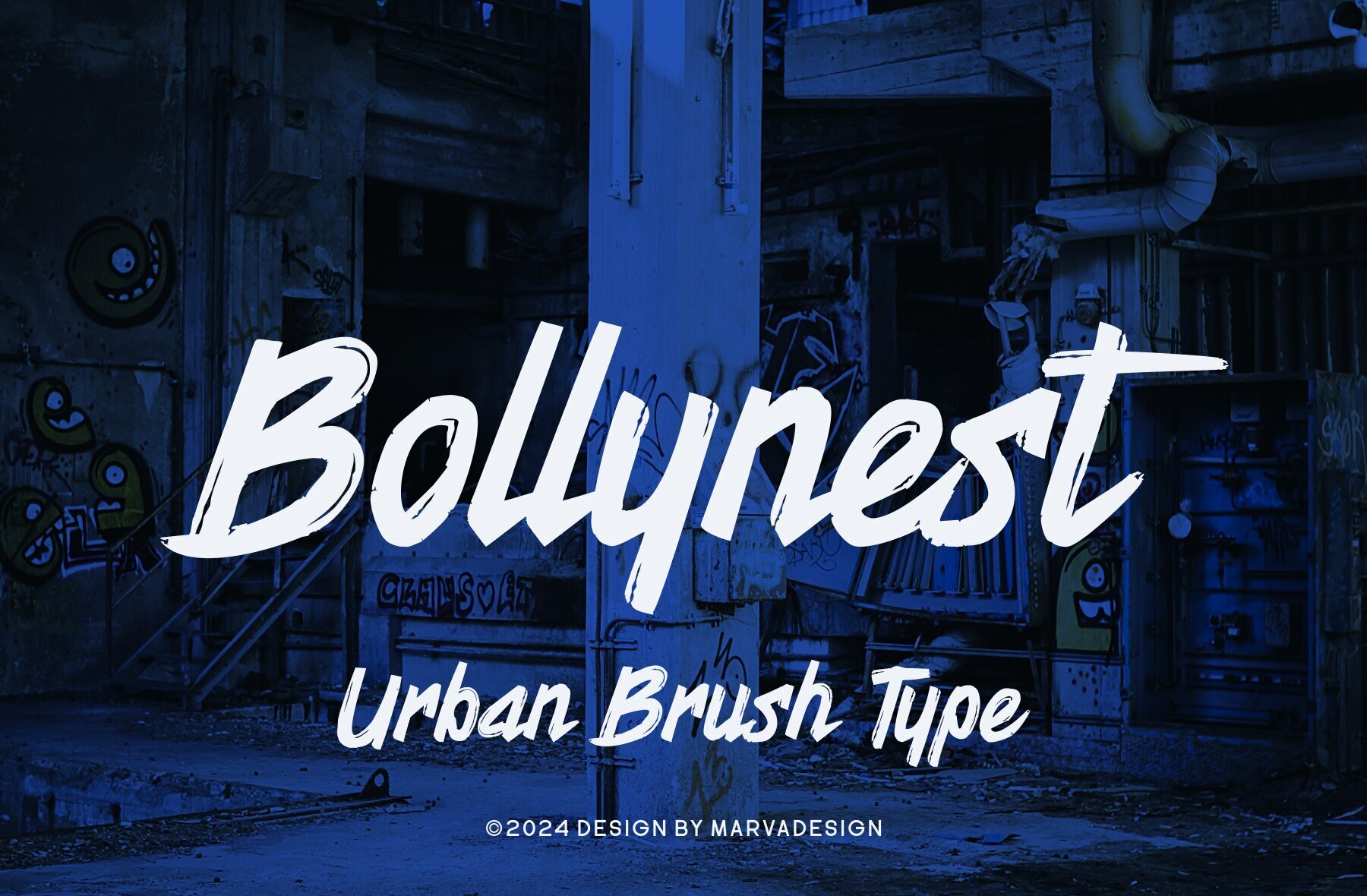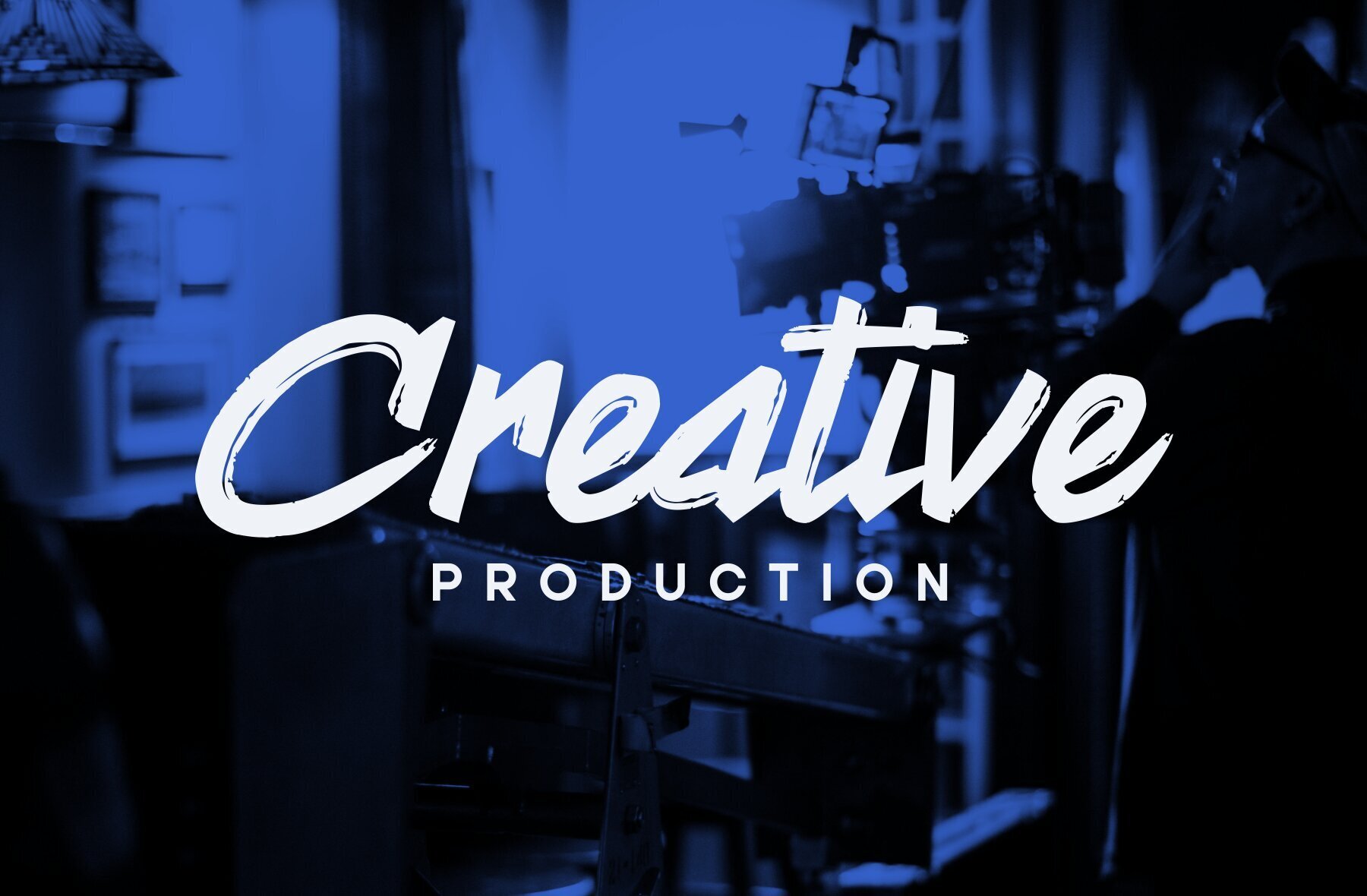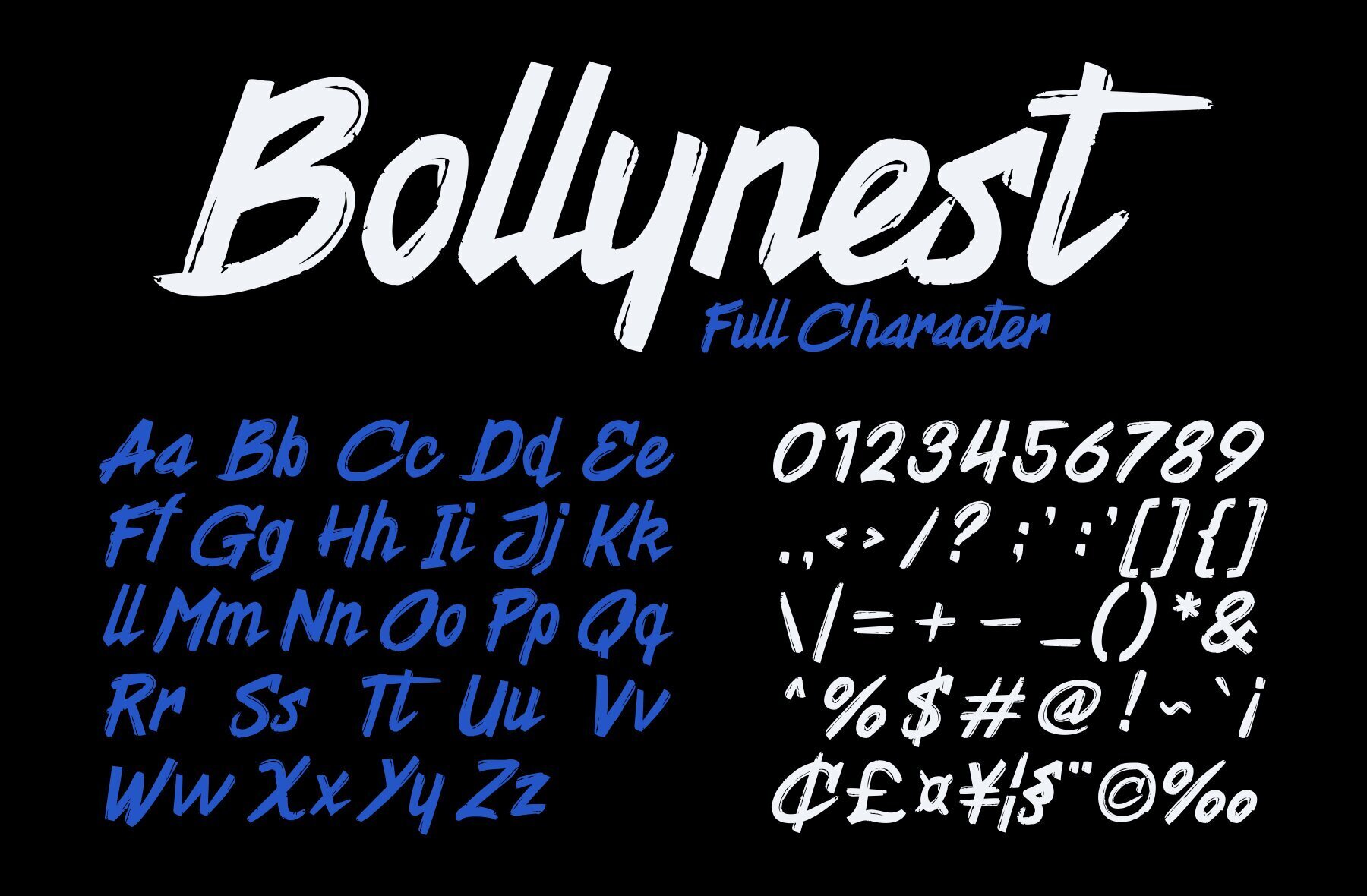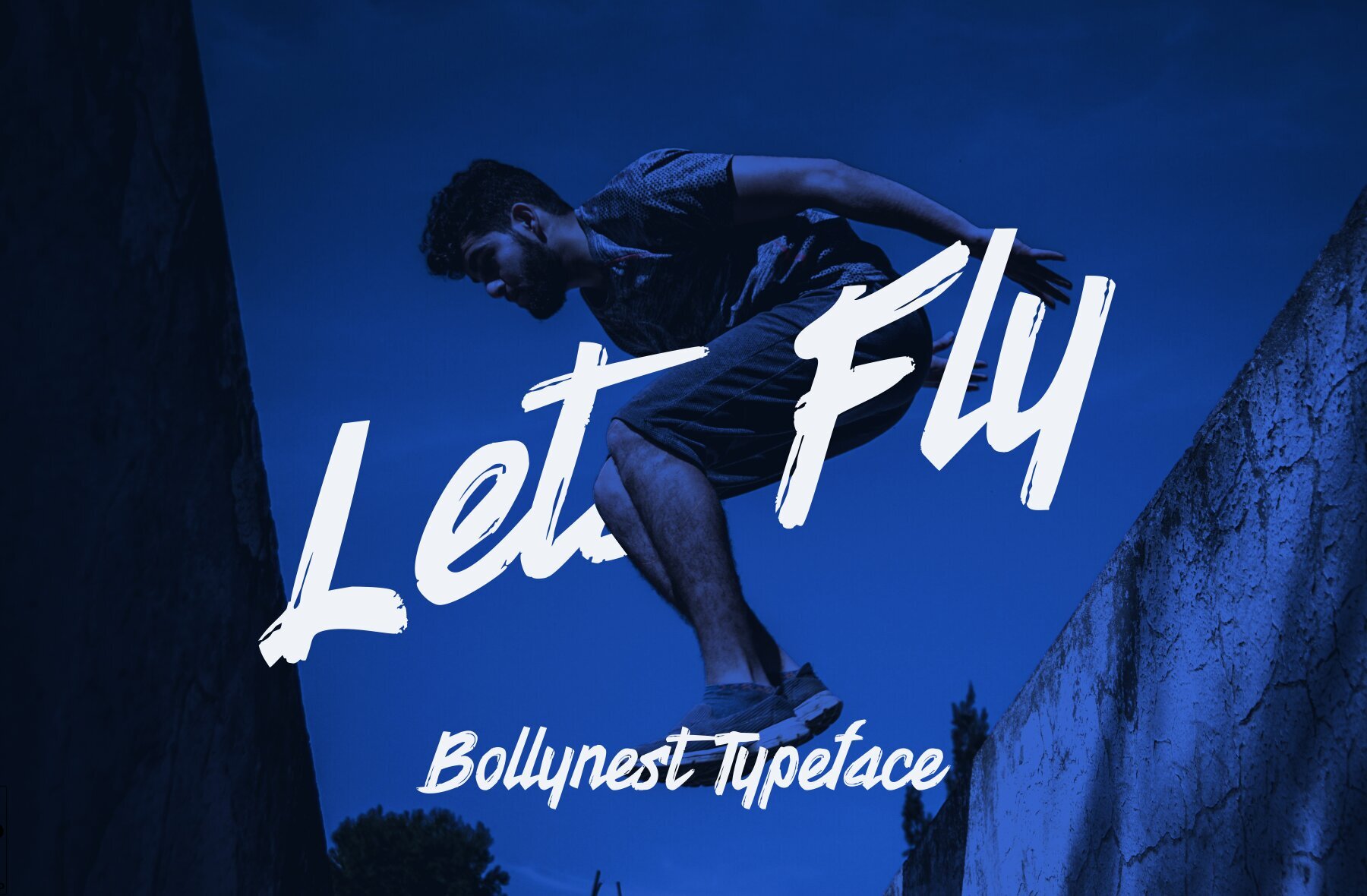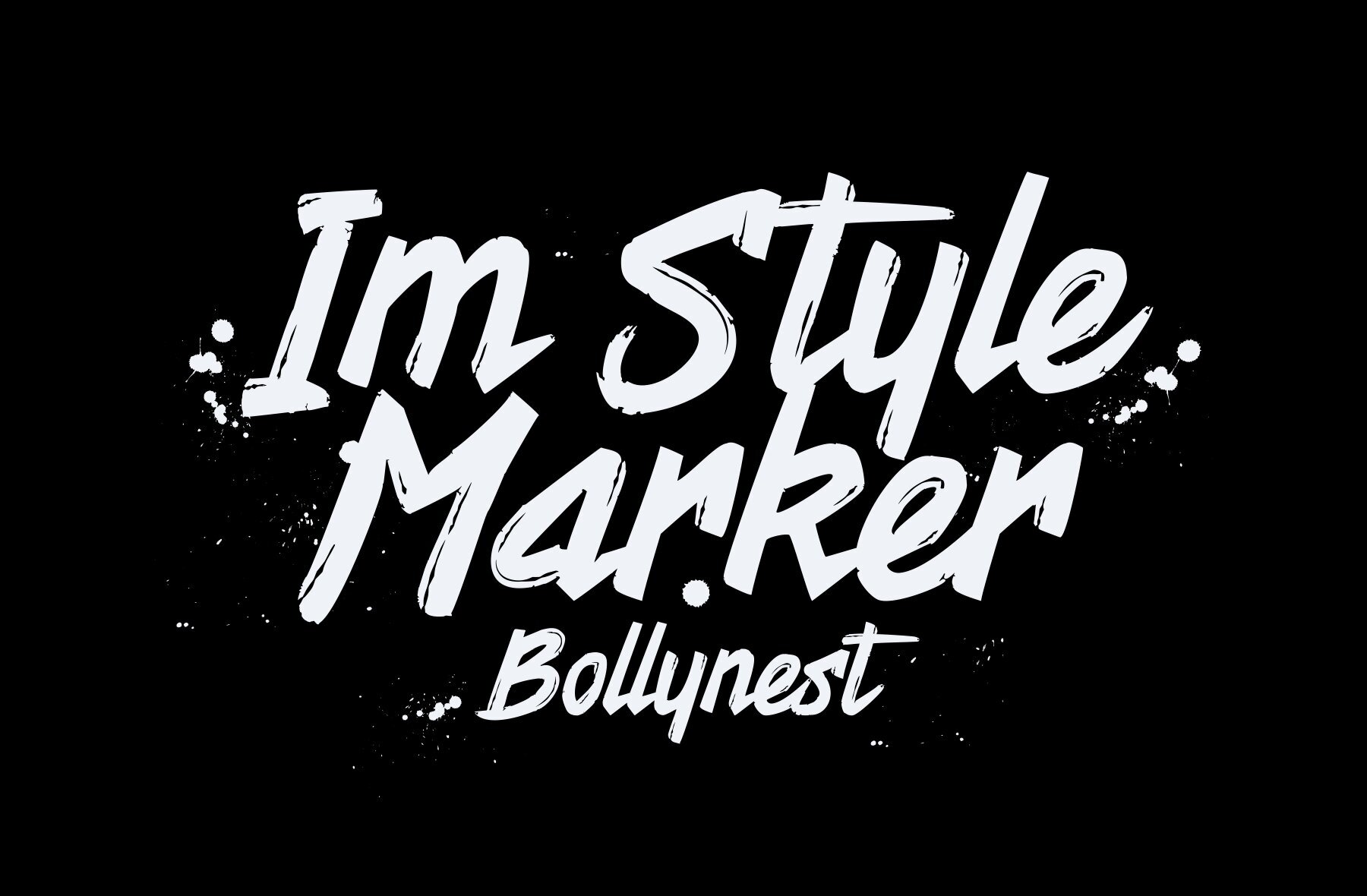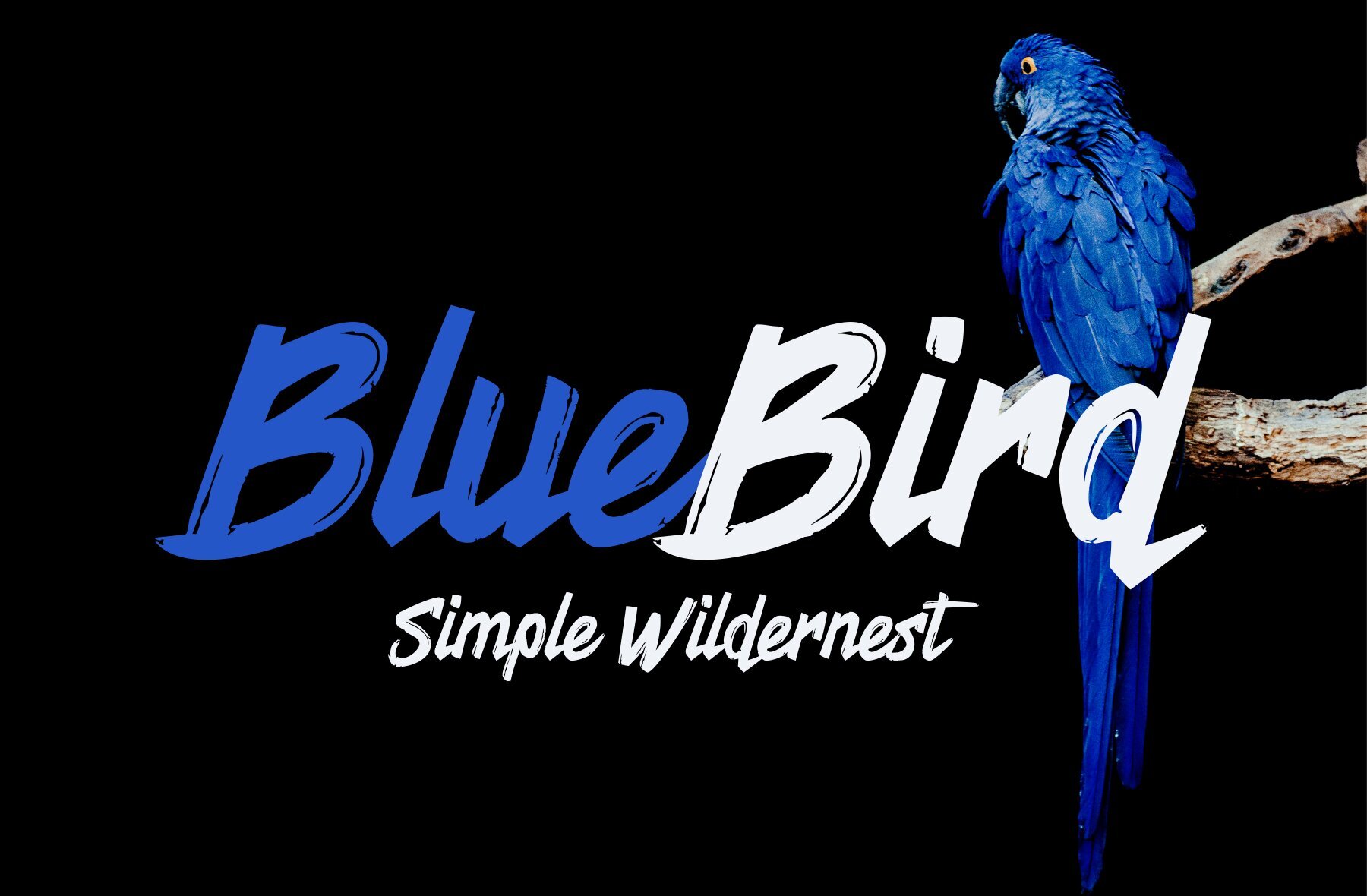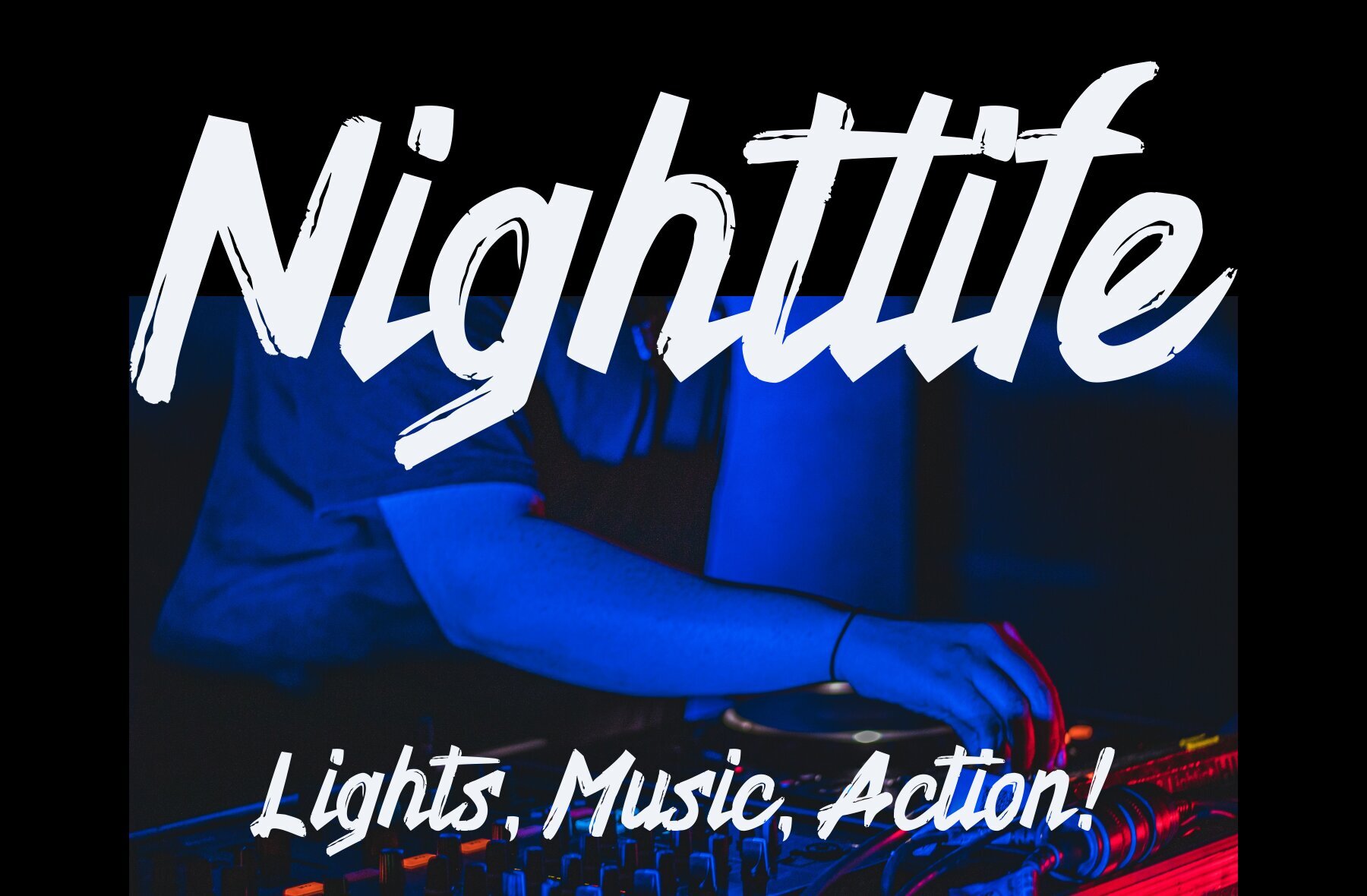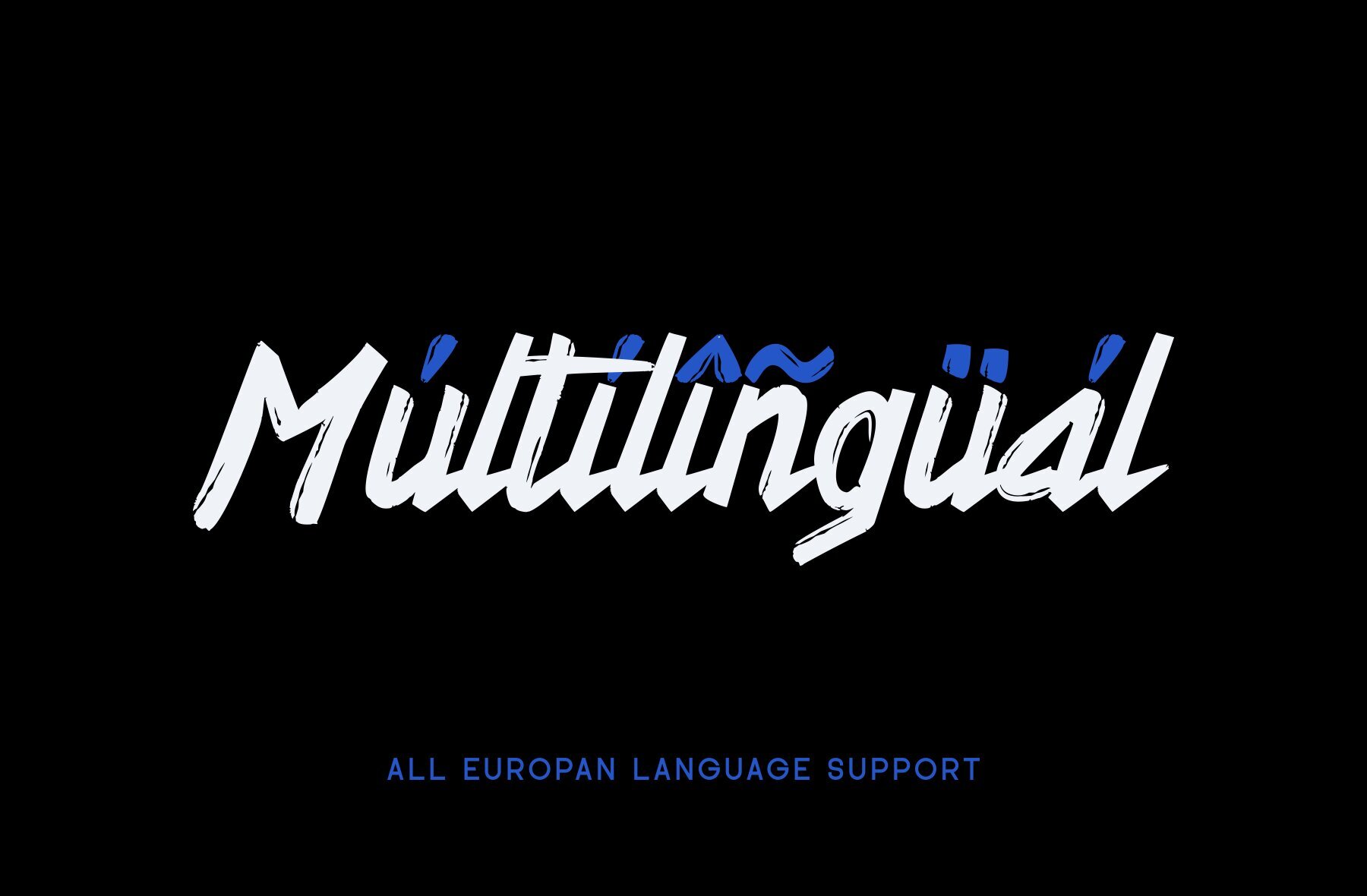
Bollynest Font
Bollynest Regular
Bollynest is a distinctive typeface that embodies the edgy spirit of urban street art. Characterized by its brush marker style, this font exudes an energetic and raw aesthetic. The semi-bold characters are meticulously crafted, providing a perfect balance of weight that makes the text both impactful and legible. Each letter in Bollynest features a subtle grunge texture, adding an authentic and rugged feel reminiscent of hand-drawn graffiti. This nuanced detailing brings an extra layer of depth and personality, making it ideal for designs that aim to capture an urban, contemporary vibe.
Whether you're working on posters, branding, or digital artwork, Bollynest’s unique blend of boldness and gritty charm will help your project stand out with a fresh, modern edge.